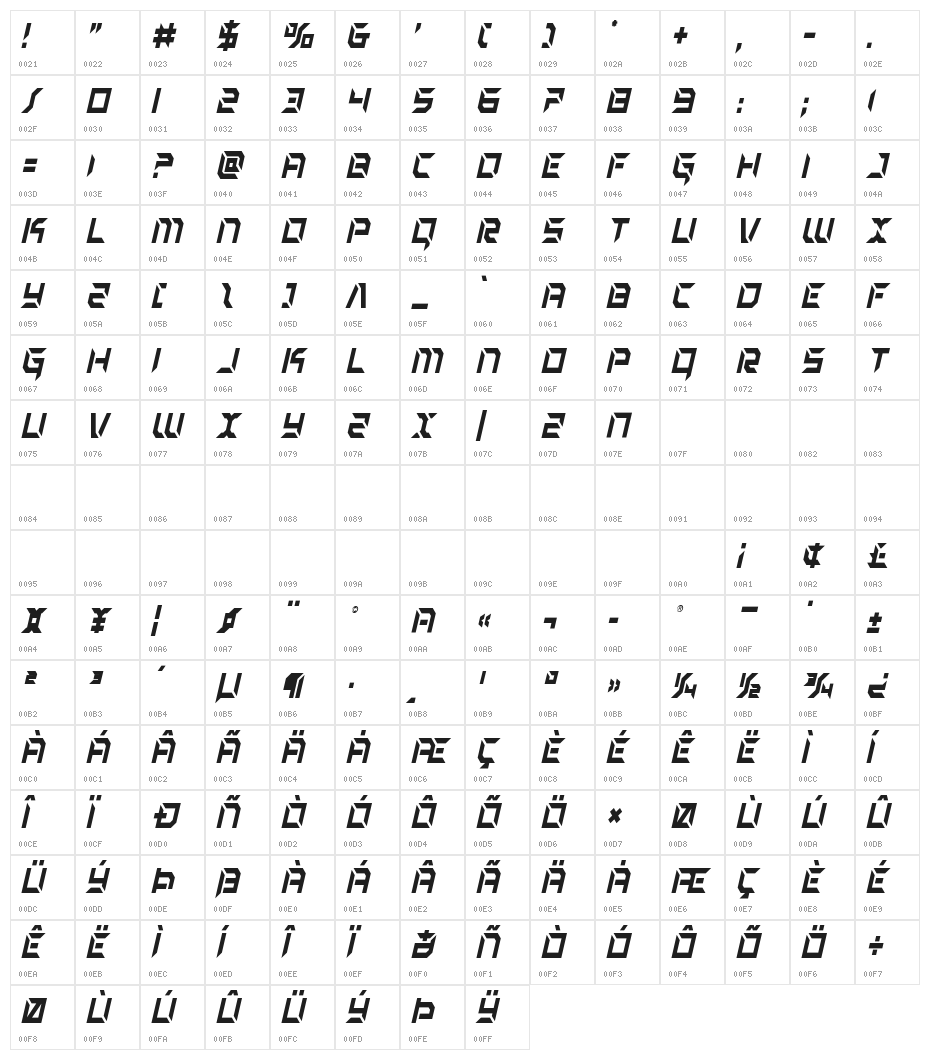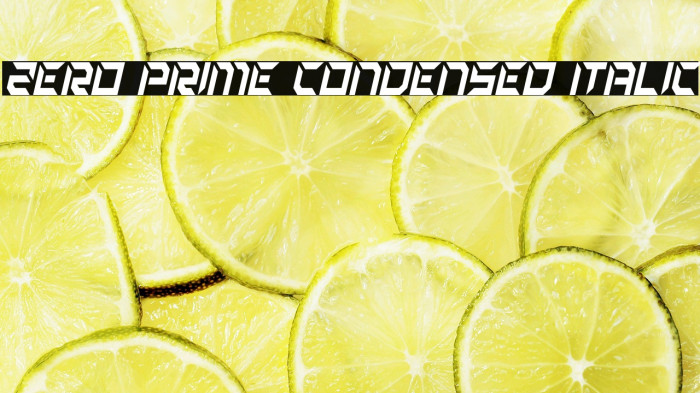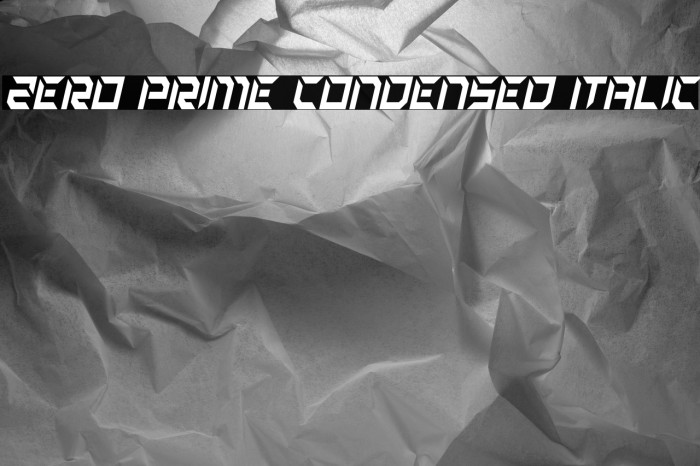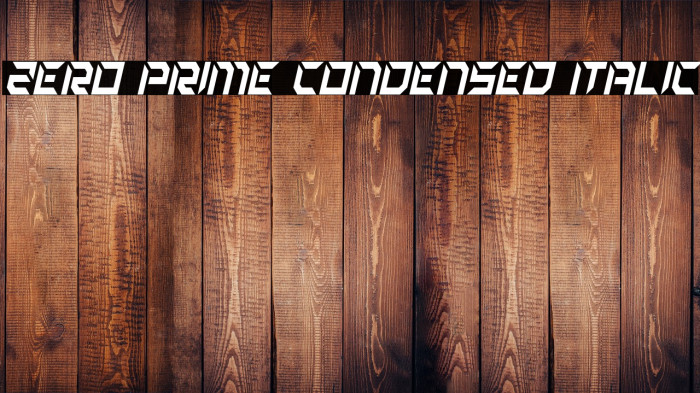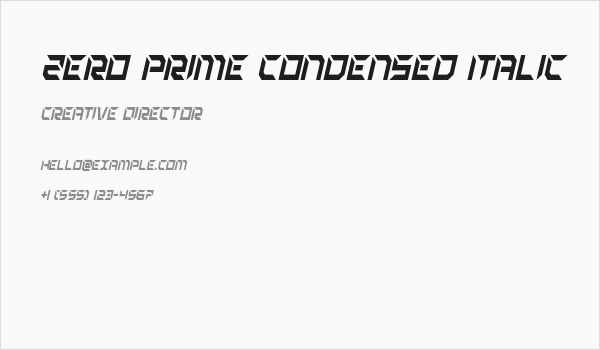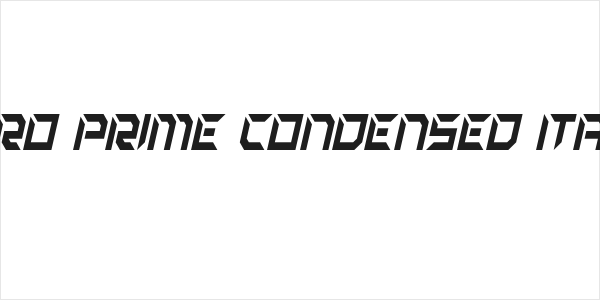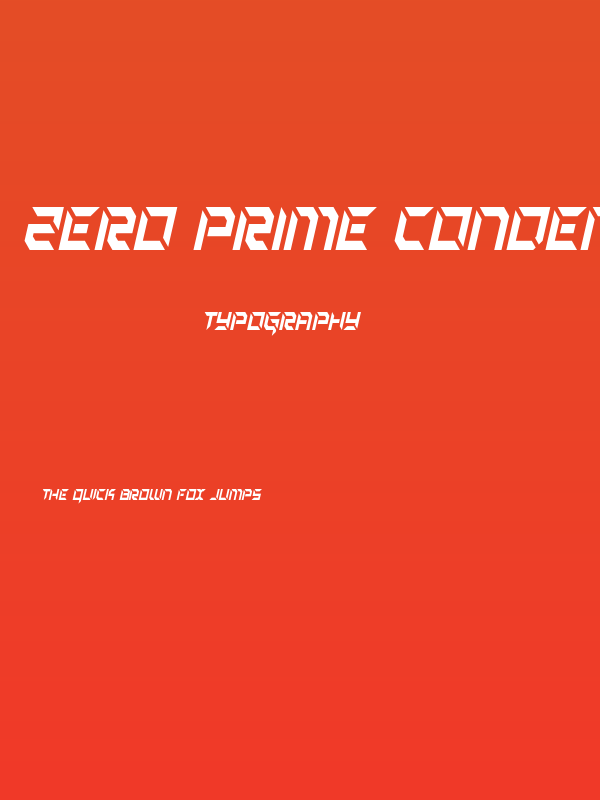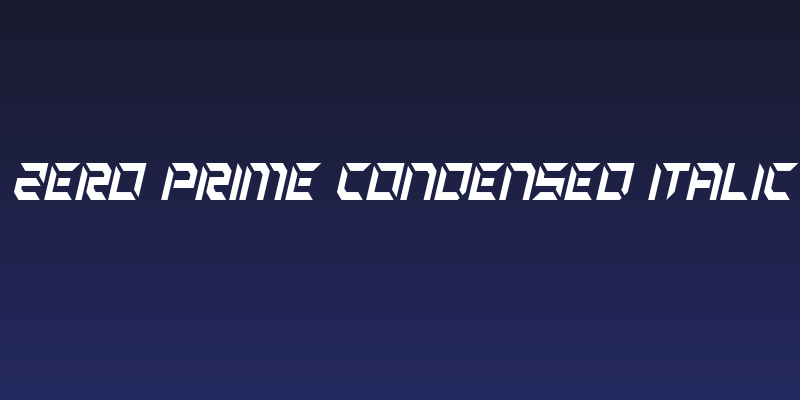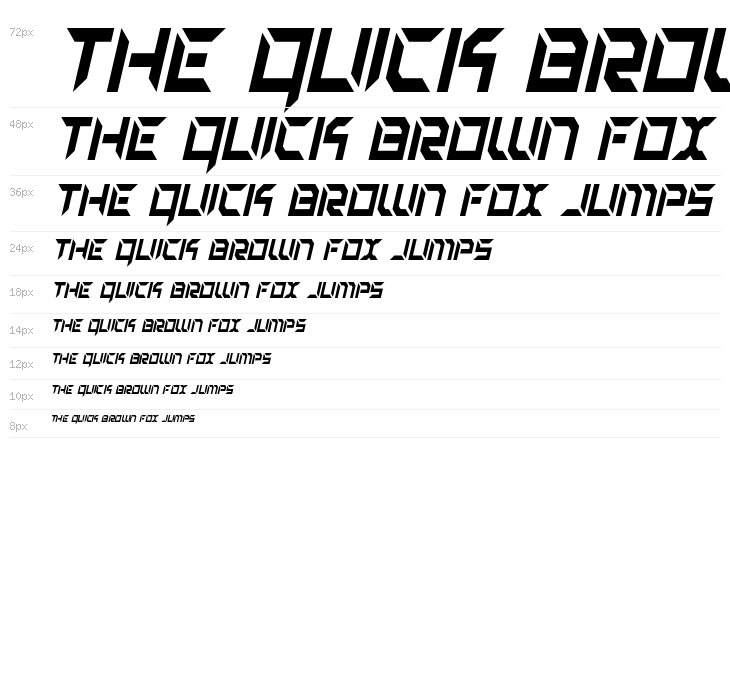
Zero Prime Condensed Italic Font
Zero Prime Condensed Italic Description
This font features a futuristic and angular design, characterized by sharp edges and a bold presence. The condensed style gives it a compact appearance, while the italic slant adds a dynamic and forward-moving feel. Each character is uniquely crafted with geometric precision, making it stand out with a distinct personality. The numbers and special characters maintain the same angular aesthetic, ensuring consistency across all glyphs. This font is ideal for projects that require a modern and edgy look, such as technology branding, video game titles, or sci-fi themed designs.
| Proposed Projects | Ideal for technology branding, video game titles, sci-fi themed designs, and modern advertising. |